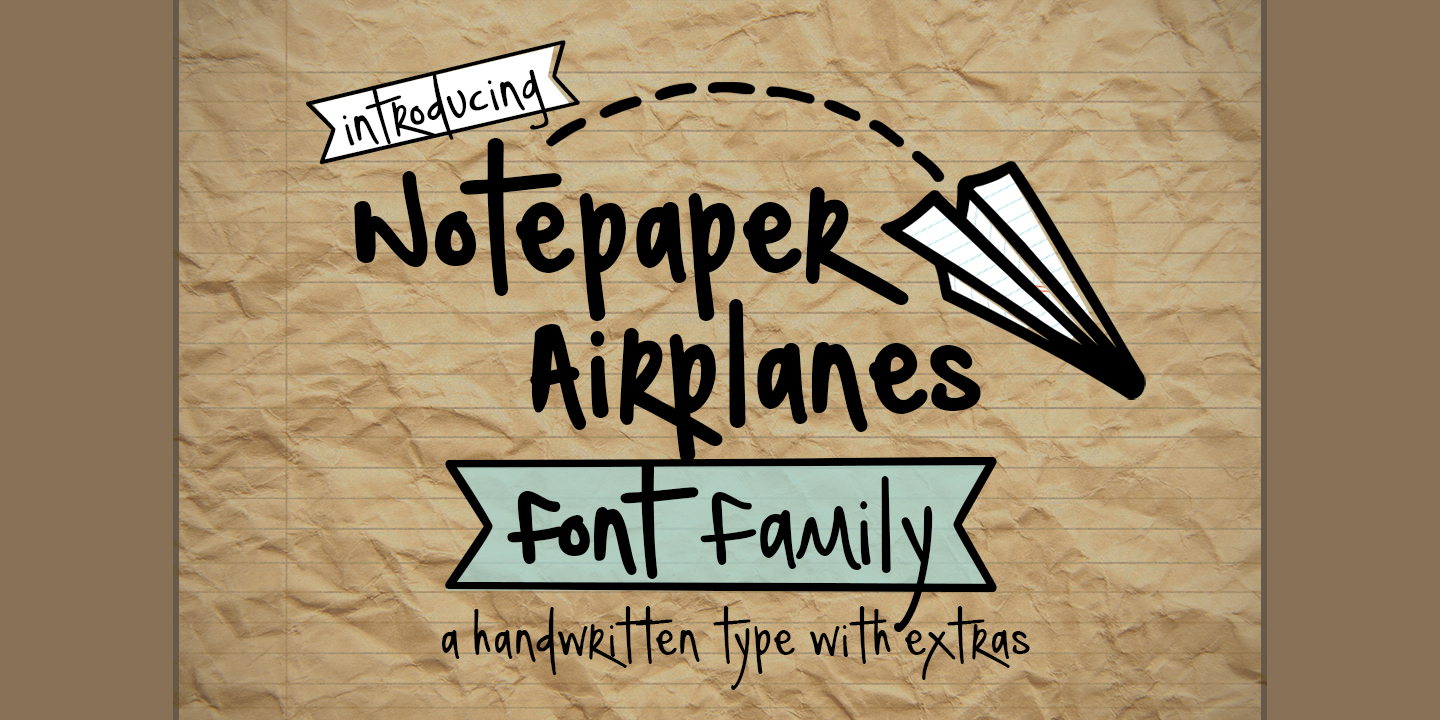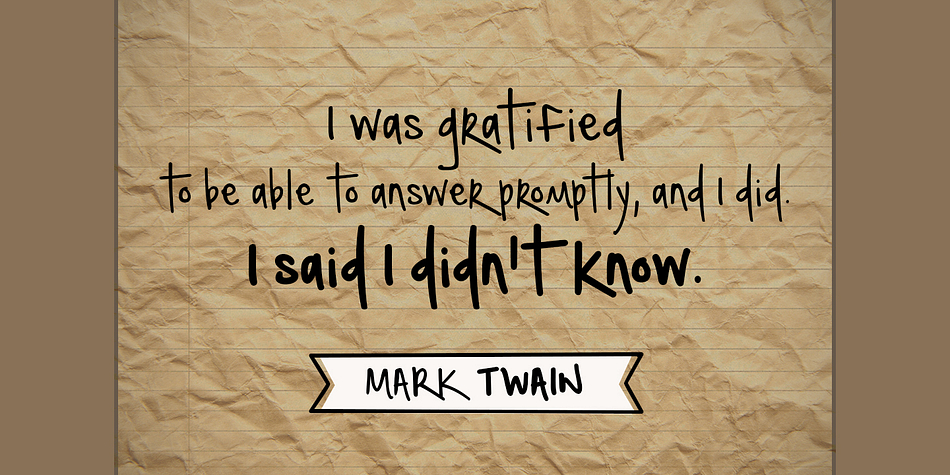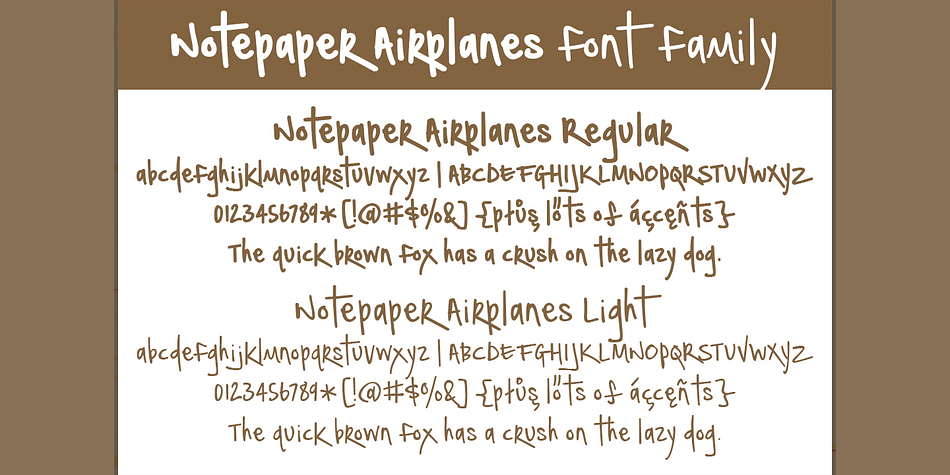
Notepaper Airplanes is a dingbat and hand drawn font family. This typeface has four styles and was published by Brittney Murphy Design.
Cool handwritten font in two weights- regular and light. Great for passing notes! Comes with a fun extras font with arrows, icons, banners, and more!